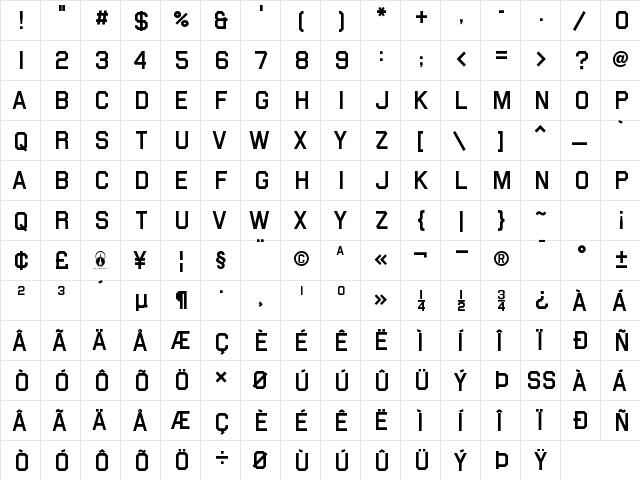
Airborne II Pilot Regular
| Designer | Charles Casimiro 2008 |
Design Context for Airborne II Pilot Typeface
Airborne II Pilot offers clean, dependable letterforms without strong stylistic allegiance, making it a practical choice for designers who need flexibility.